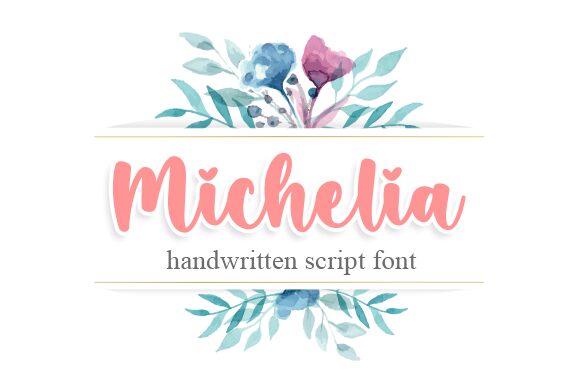
Michelia
Michelia, a bold and smooth brush font designed by Graphix Line Studio, is the perfect typeface for creative projects that require a touch of elegance and sophistication. Its thick strokes effortlessly capture attention, making it the ideal choice for headlines, posters, logos or any design project that requires a bold statement. Michelia's unique style adds an artistic flair to invitations, packaging designs and social media posts. This versatile font is suitable for a variety of projects that demand attention-grabbing visuals with an air of sophistication - from modern art galleries to luxury fashion brands.